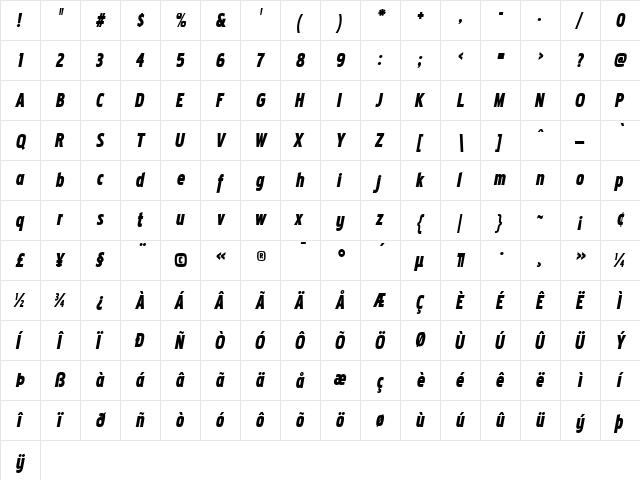
Pakenham Cnd Blk Italic
Design Context for Pakenham Cnd Blk Typeface
Pakenham Cnd Blk offers clean, dependable letterforms without strong stylistic allegiance, making it a practical choice for designers who need flexibility. Its italic angle brings a sense of urgency and motion to the letterforms.